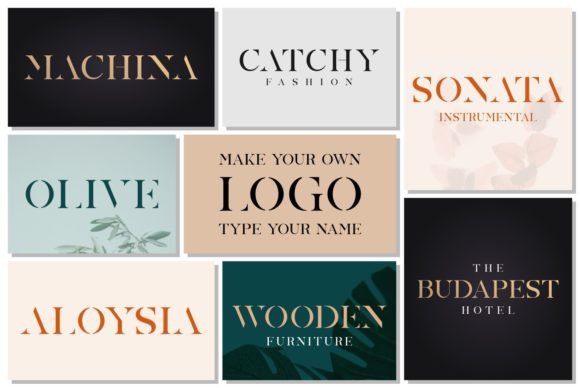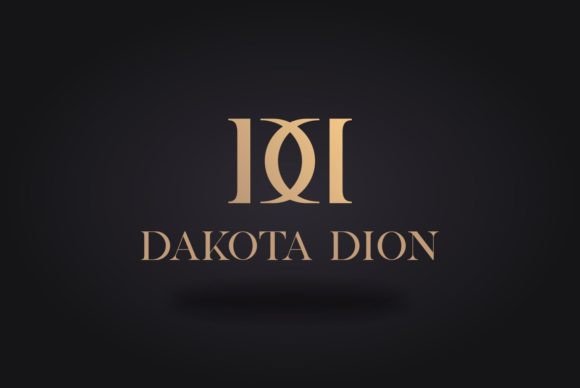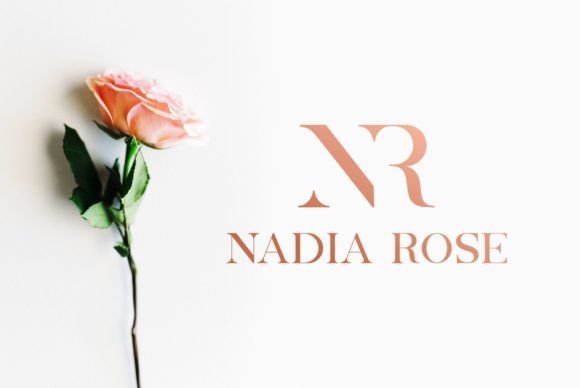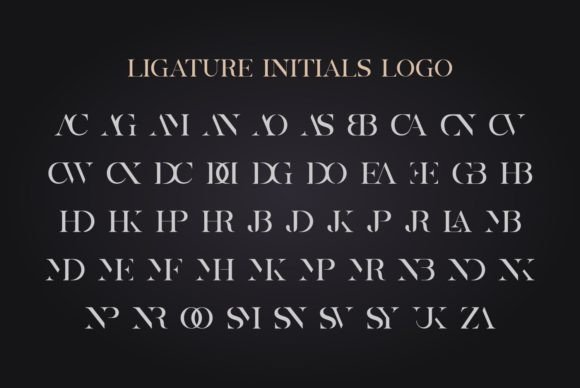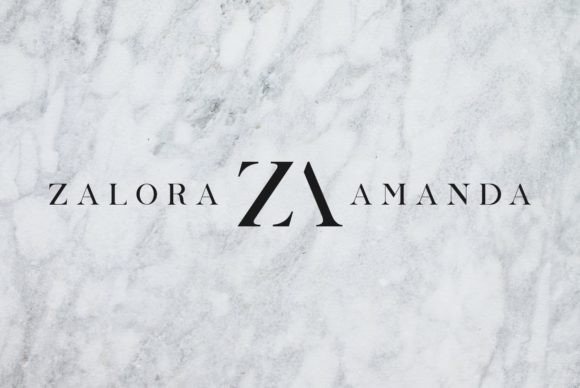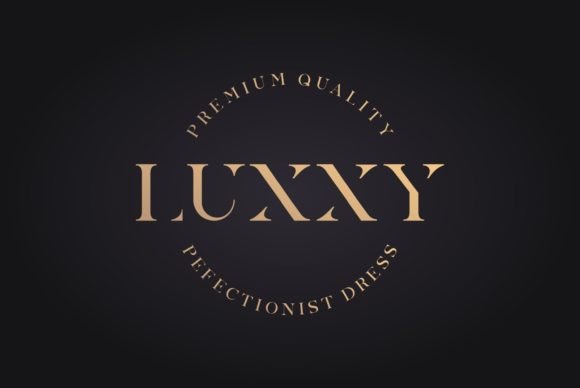
Introduction to Monica Allcaps Font
Monica Allcaps is a luxurious vintage display font.
This chic and stylish font is perfect for all your design projects that need a sleek and elegant look Monica Allcaps is PUA encoded which means you can access all the glyphs and ligatures with ease.